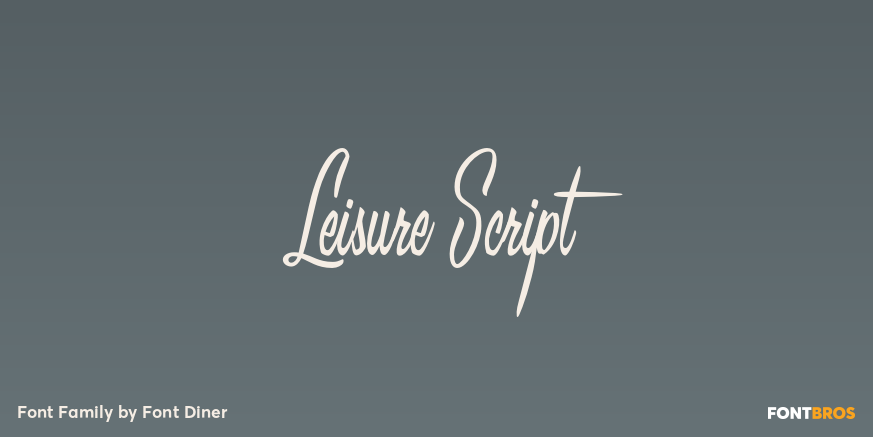
HomeFont BrosRetro (1936-1965)Leisure Script Retro (1936-1965)Scripts: Casual Leisure Script FacebookXPinterestWhatsApp 1 of 1 About Leisure Script Take it easy with Leisure Script! This casual fine brush script is to the eyes what Dean Martin is to ears!  DOWNLOAD ON FONT BROSThis font is sold and delivered by Font Bros. Font Canyon may earn a commission if you buy through this link. People also explored Manhattan Darling Typeface Satnight Font Bidaq Font Mandala Vintage Font Lompat Font Bonipe Farming Font Amellinda Signaturere Font Sunflower Font One Mith Font 218 0 TagsLeisure Script Font Previous articleAlepholonNext articlePAG Novembris LEAVE A REPLY Cancel reply Comment: Please enter your comment! Name:* Please enter your name here Email:* You have entered an incorrect email address! Please enter your email address here Website: Save my name, email, and website in this browser for the next time I comment. Personal Use Free The Royal Personal Use Free Read more about this font Hello Holiday Personal Use Free Read more about this font Hello Sarrah Personal Use Free Read more about this font Clarisa Script Personal Use Free Read more about this font BLOG Free Fonts Risk: Why Free Fonts Can Be Dangerous for Designers Free Fonts Risk: Why Free Fonts Can Be Dangerous for Designers Using free fonts is a common practice in web and graphic design. However, the... The 10 Best Handwriting Fonts to Add Personality to Your Designs To increase your work productivity, choose the most readable fonts. 5 Fonts That Will Dominate Design Trends in 2026